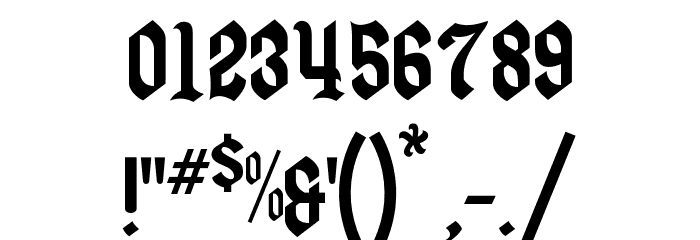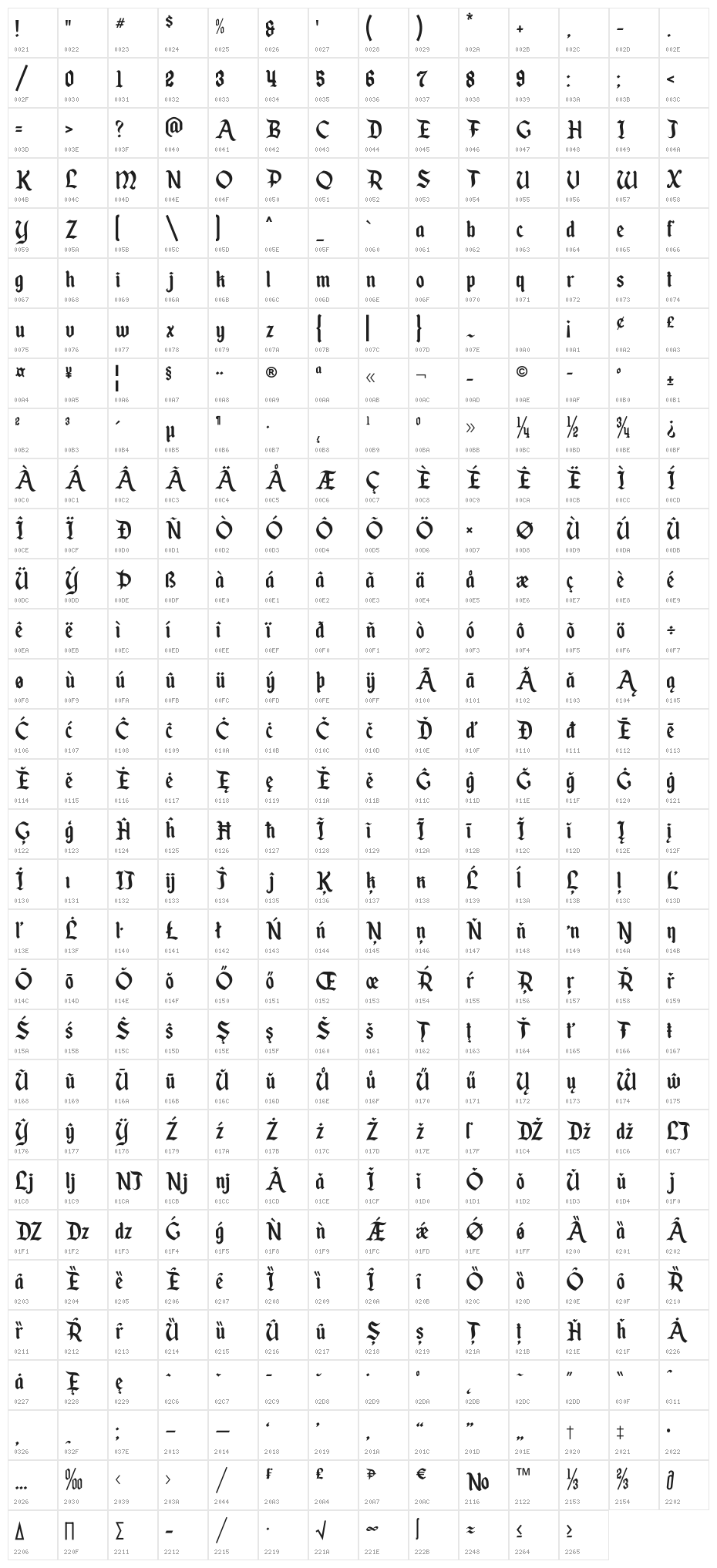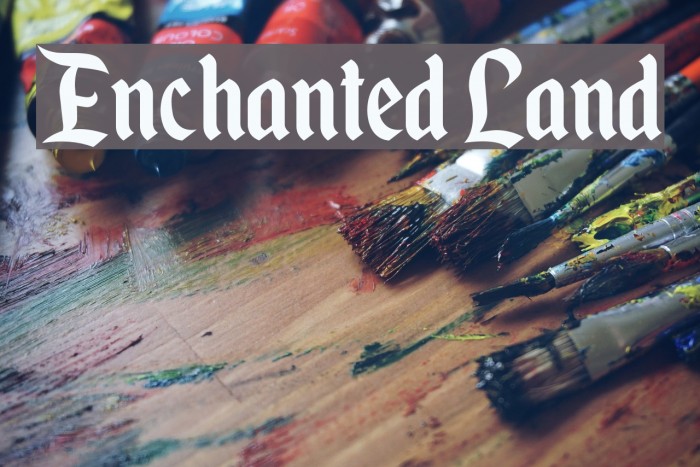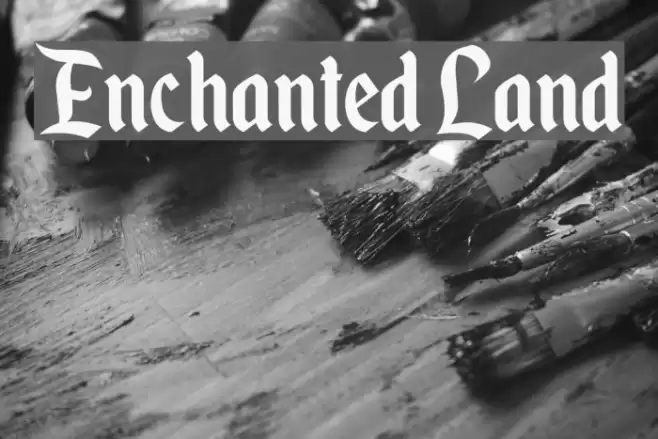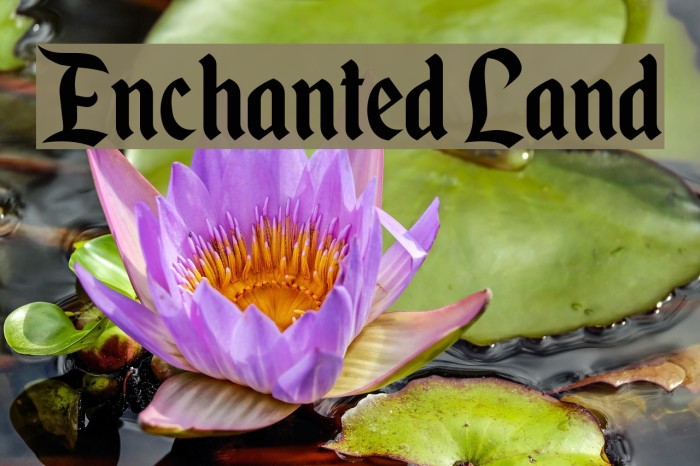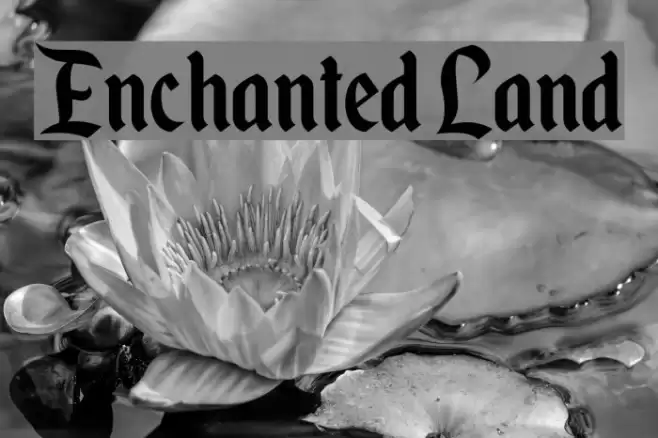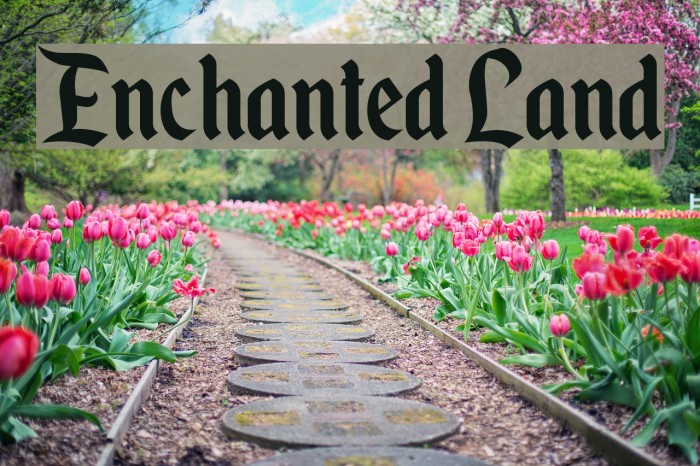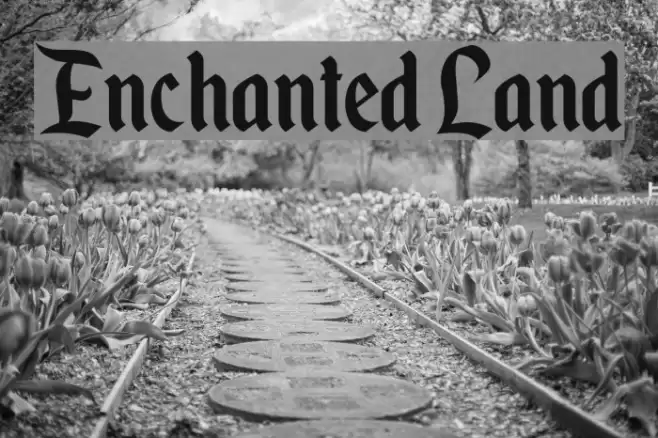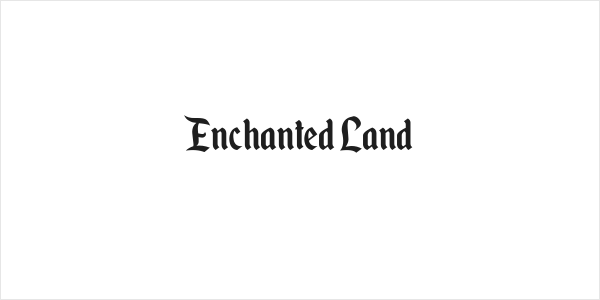
Enchanted Land Font
Enchanted Land Description
This font exudes a medieval and gothic charm, characterized by its intricate and ornate letterforms. The uppercase letters feature sharp, angular serifs and dramatic strokes that evoke a sense of historical elegance. The lowercase letters maintain a consistent style, with a slightly more subdued appearance, yet they still carry the same decorative flair. Numbers and special characters are crafted with the same attention to detail, ensuring a cohesive look across all glyphs. The font's overall aesthetic is reminiscent of old manuscripts and heraldic designs, making it ideal for projects that require a touch of fantasy or historical authenticity.
| Proposed Projects | Ideal for fantasy book covers, historical event posters, themed invitations, and branding for medieval-themed businesses. |